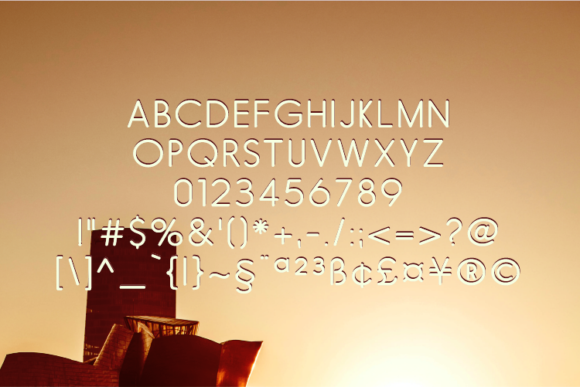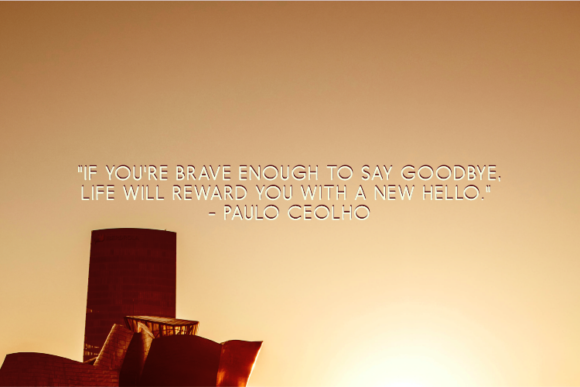
Introduction to Mintlite Font
As designers, we’ve all been there – staring at a blank canvas, eager to bring our creative vision to life. The perfect font can make all the difference, and that’s exactly where the Mintlite Font comes in. This stunning sans serif font is a game-changer for any creative project, offering a classic style that’s both timeless and versatile.
Whether you’re working on a high-end branding project, crafting gorgeous invitations, or simply need a reliable design resource for your next big idea, Mintlite Font has got you covered. With its crisp lines and transparent background, it’s the perfect addition to any design arsenal. And the best part? You can download it for free, making it an invaluable asset for designers of all levels.
Get ready to elevate your designs with the Mintlite Font – a true gem in the world of typography.
Key Features of Mintlite Font
- Mintlite Font is a high-quality design resource ideal for creative projects requiring a modern and elegant touch.
- With a large character set, including Latin and Cyrillic alphabets, this font is suitable for a wide range of applications.
- The font features a clean, sans-serif design with a high resolution of 300 DPI, ensuring crisp and clear typography in various sizes.
Honest Review: Mintlite Font
I recently came across the Mintlite Font and was excited to give it a try. As a designer, I’m always on the lookout for high-quality fonts to enhance my creative projects. The Mintlite Font does not disappoint.
- ✨ The Mintlite Font offers a clean and modern design aesthetic, making it perfect for minimalist-inspired projects.
- ✨ The Mintlite Font is highly versatile and can be used for a variety of projects, from digital design to print materials.
- ⚠️ The font does not support as many languages as I would have liked, which could be a limitation for designers working on international projects.
- ⚠️ The font files could be more comprehensive, with additional weights and styles to enhance its overall usability.
Overall, I’m impressed with the Mintlite Font and would recommend it to designers looking for a high-quality, free download. While it may have some limitations, its clean design and versatility make it a valuable resource for any design project.
For the best results, use the Mintlite Font in conjunction with other high-quality design elements. Experiment with different font sizes, colors, and styles to create a unique and eye-catching design.
The Mintlite Font is perfect for use in a variety of creative projects, including logos, business cards, and social media graphics. Its transparent background makes it easy to use on any background, making it a versatile design resource.